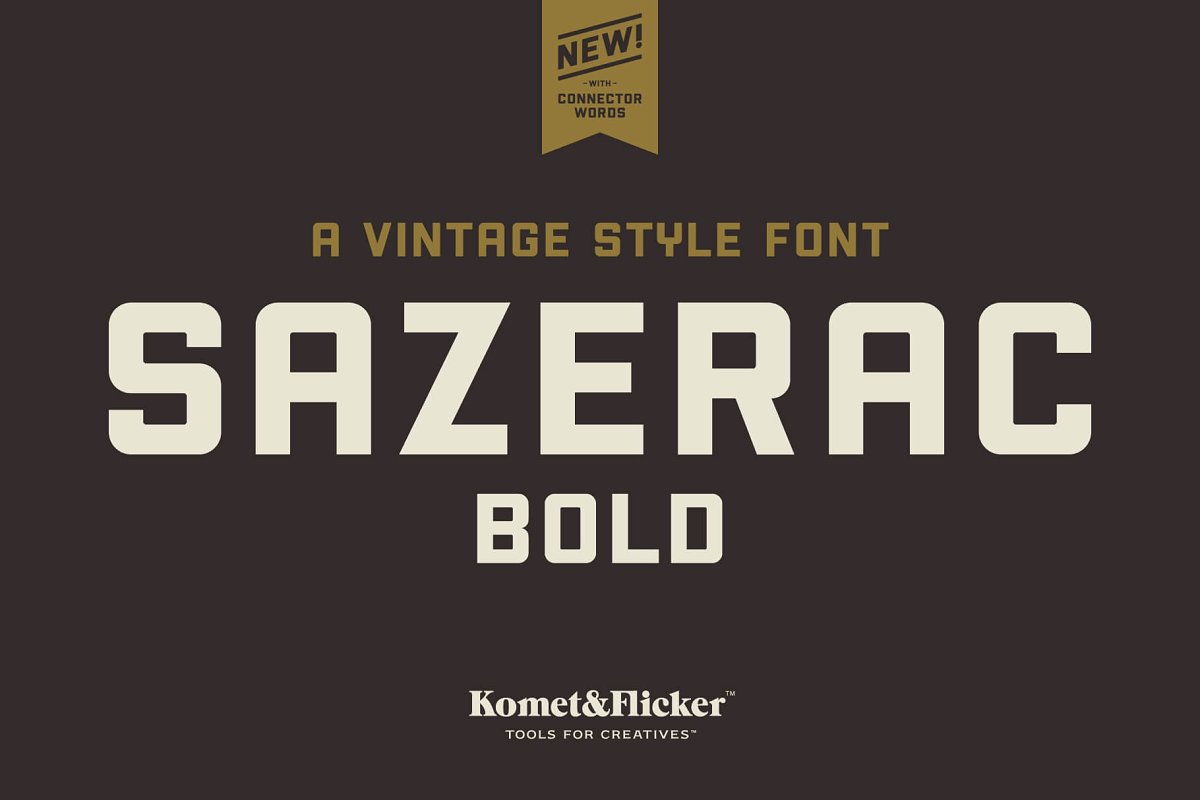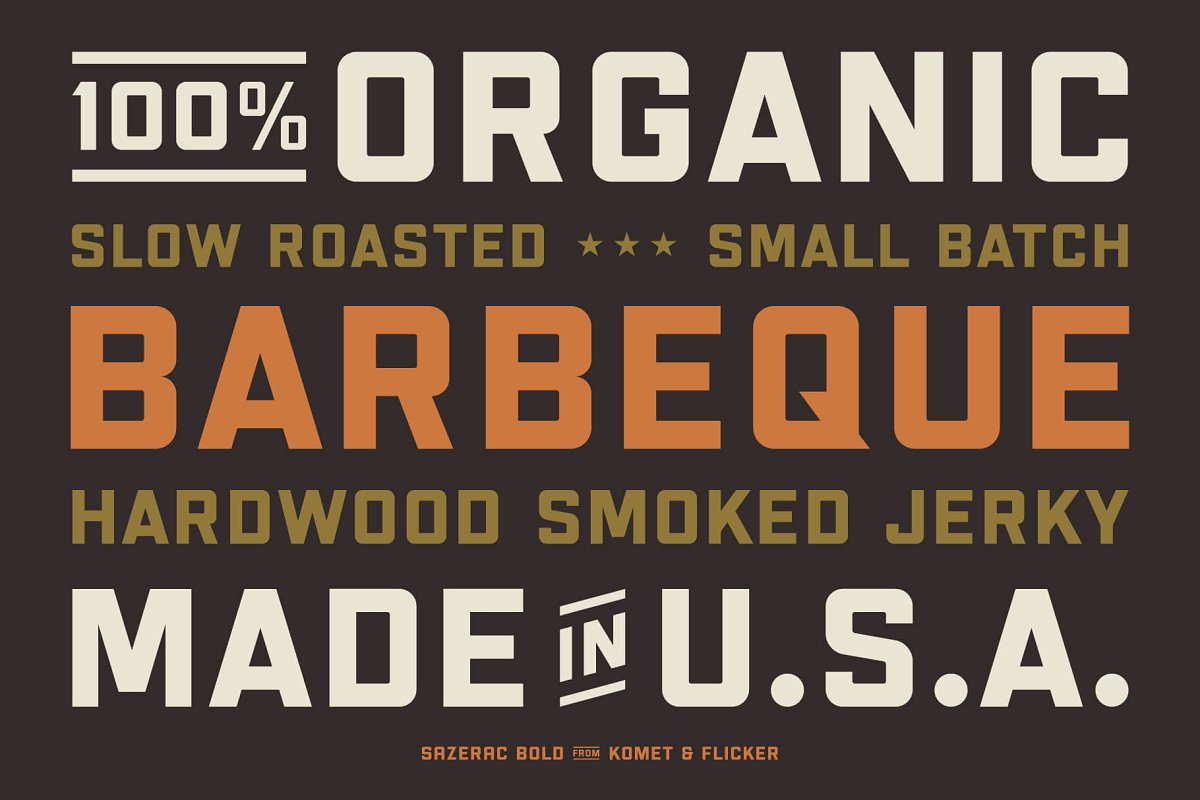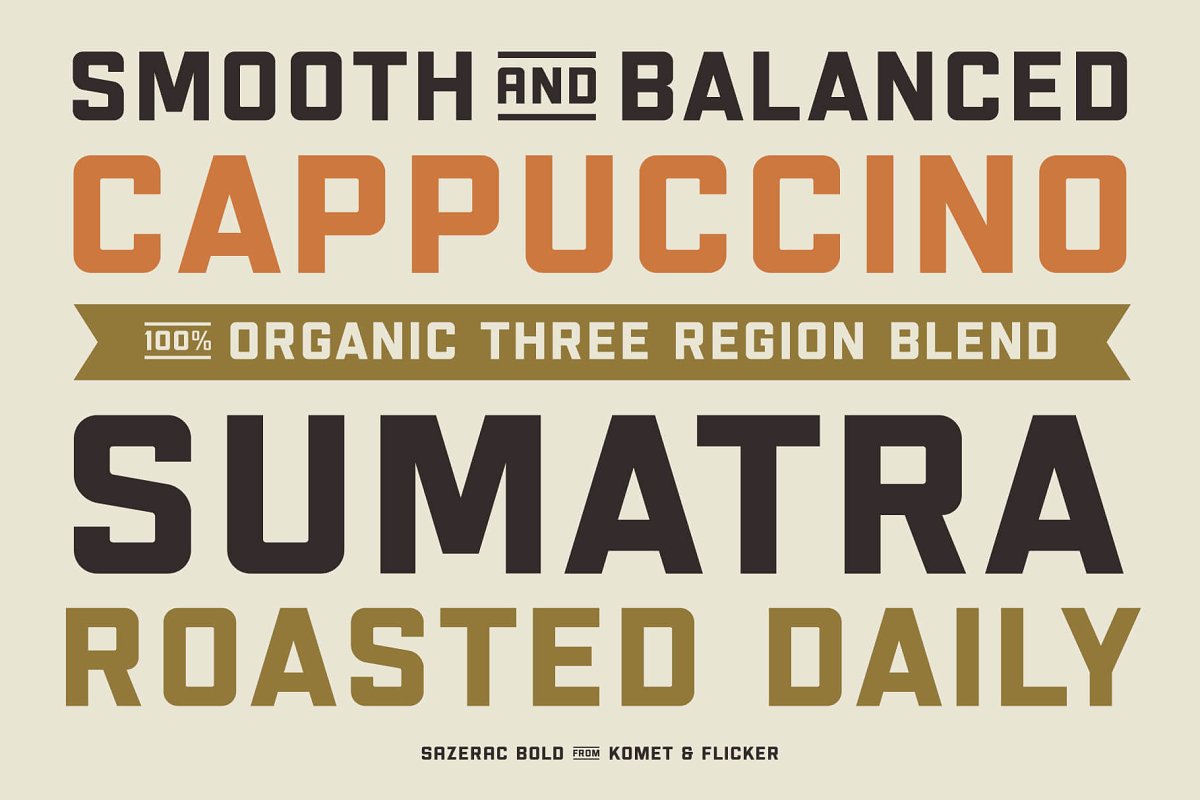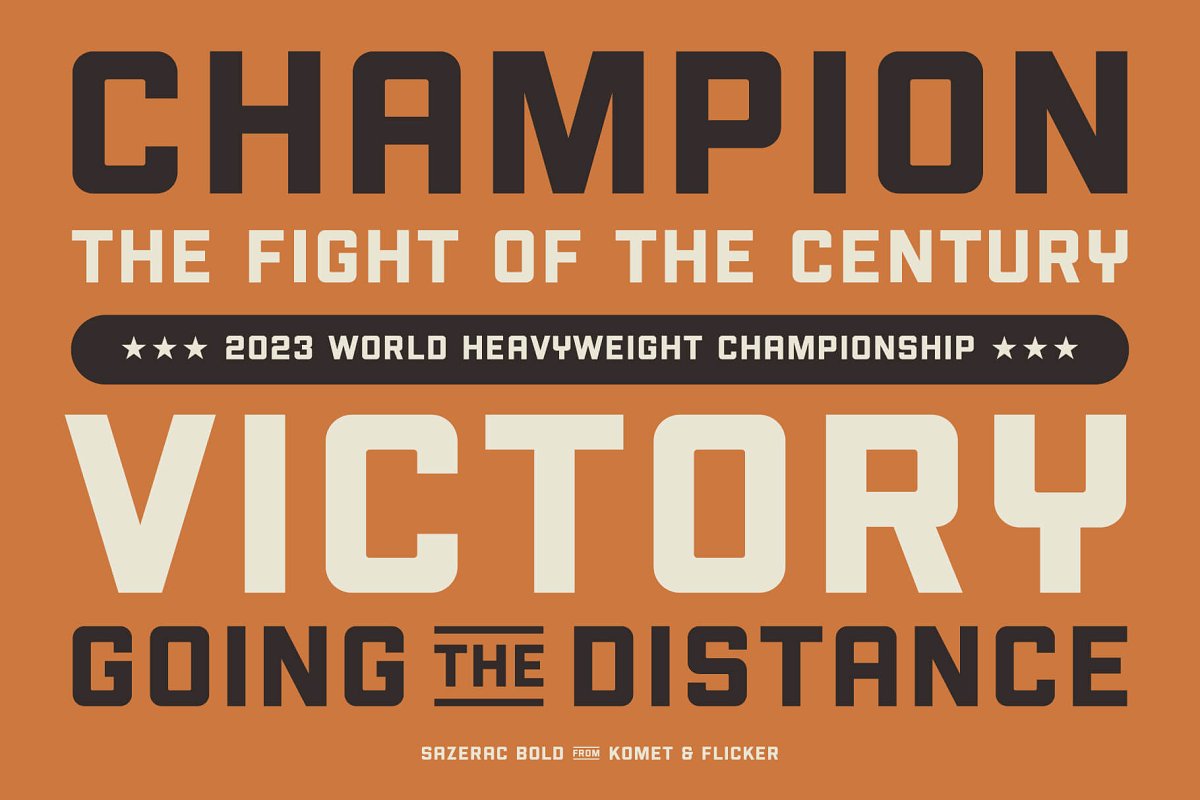
About the SAZERAC Bold Font
NEW! Includes a set of 58 connecting word character glyphsSAZERAC is a bold vintage-style sans-serif display font that works great for logos, packaging, branding, menus, advertising, and posters, The lowercase letter set contains alternate characters for A, M, Q, S, and Y, Also included are alternate © and @ symbols, an alternate ampersand (&) plus an alternate set of fractions